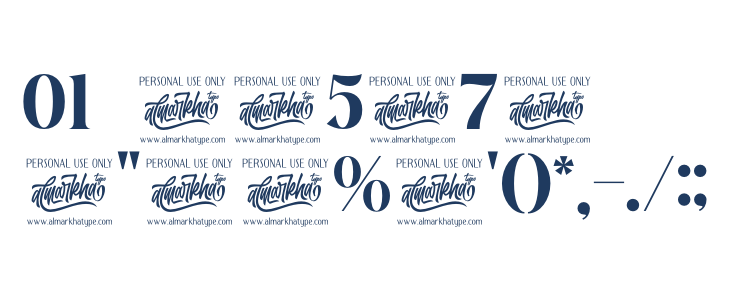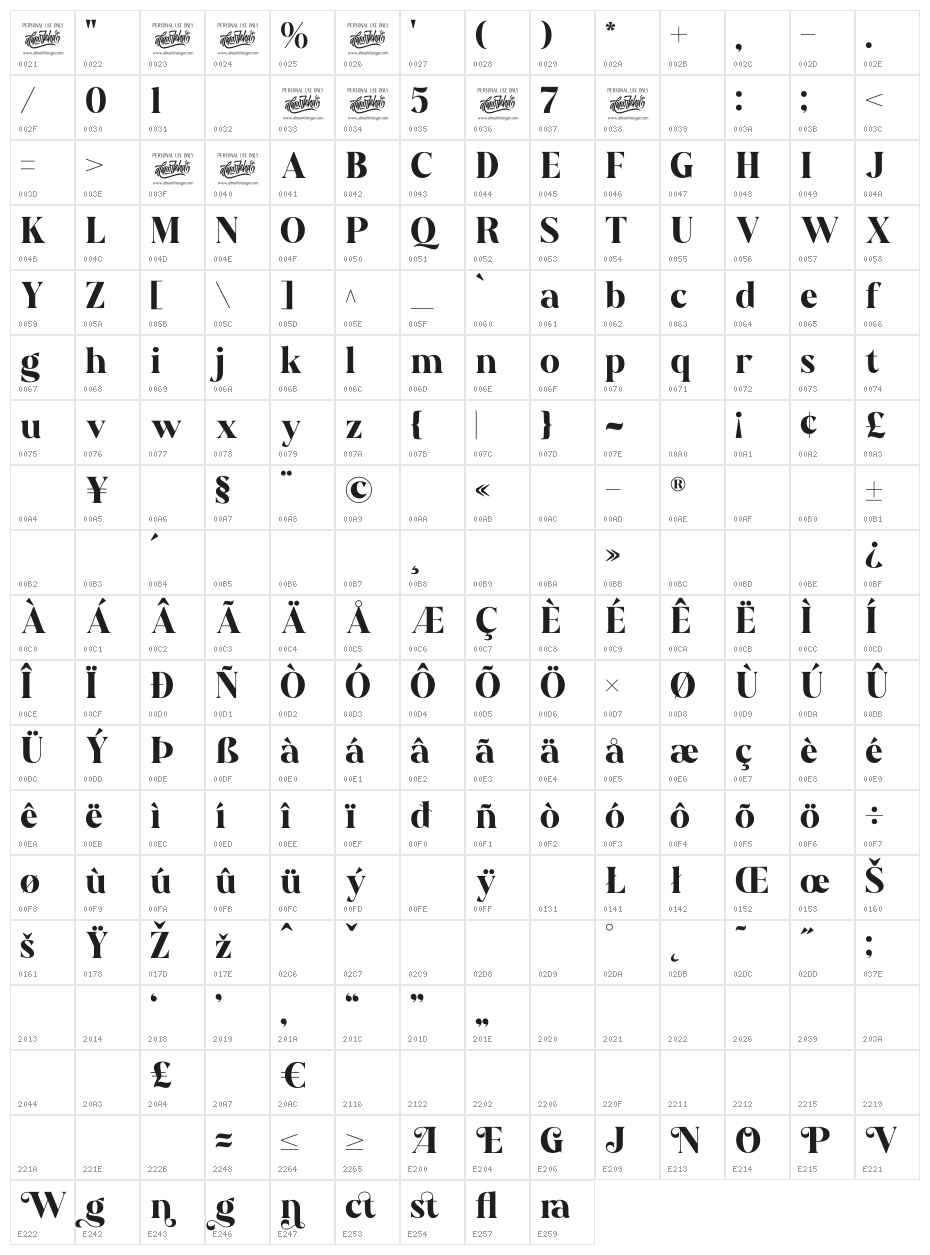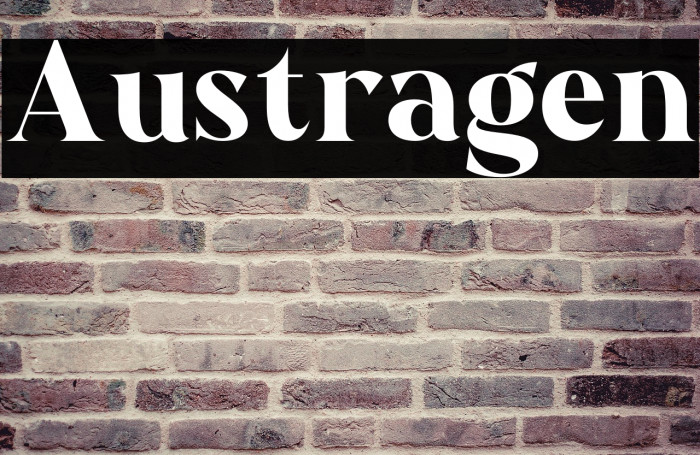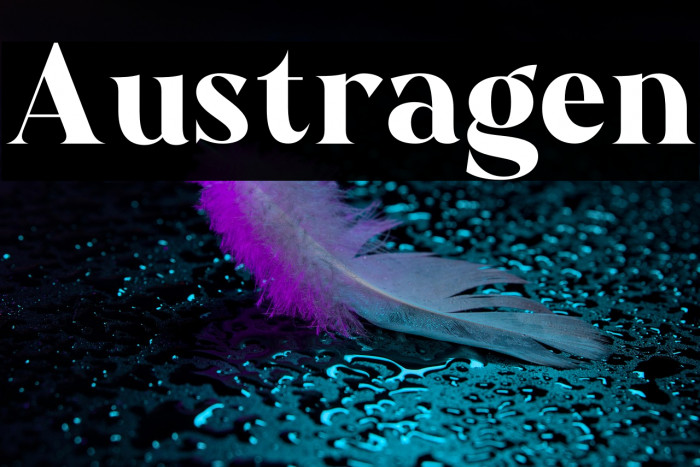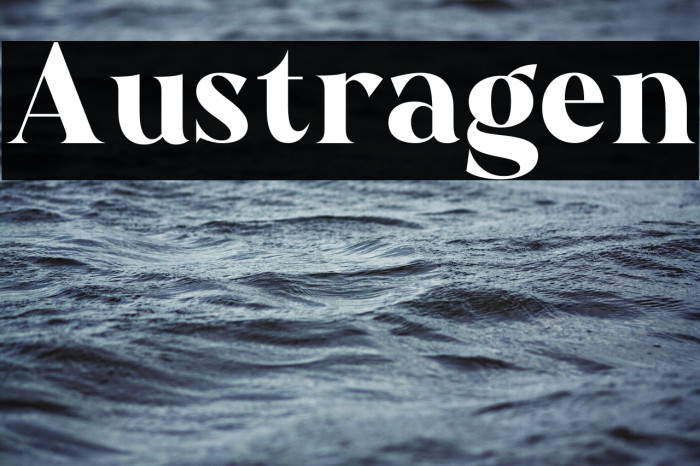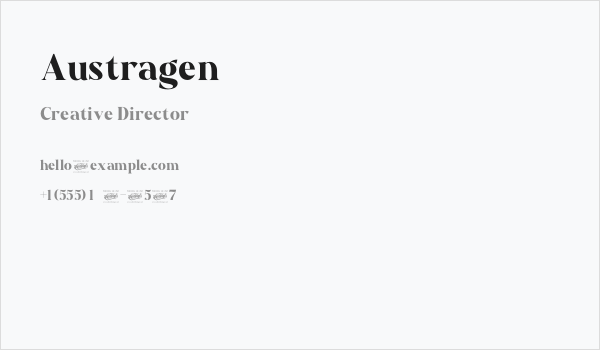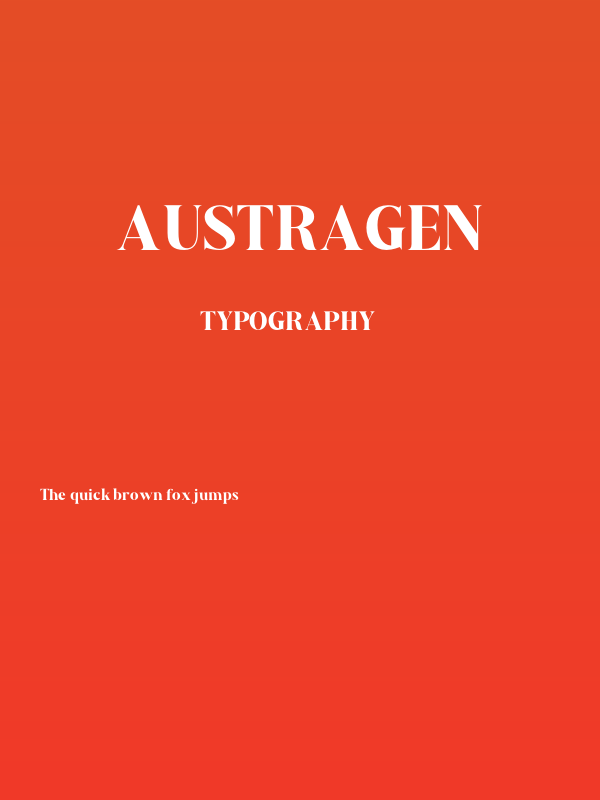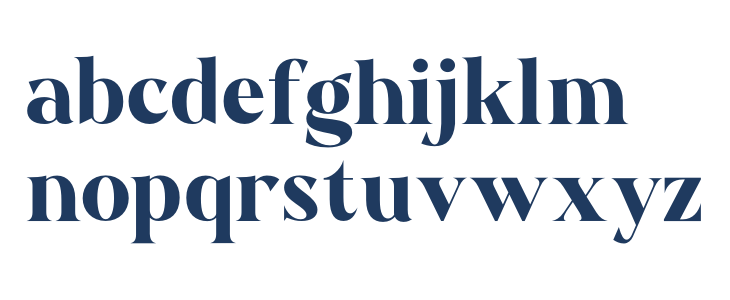
Austragen Font
✎ Serif
Austragen Description
This font exhibits a bold and elegant serif style, characterized by its strong, thick strokes and high contrast between thick and thin lines. The uppercase letters are particularly striking, with a classic and authoritative presence. The lowercase letters maintain a consistent style, offering a harmonious balance with the uppercase. The numerals are clear and legible, while the special characters add a touch of sophistication. This font is suitable for projects that require a touch of elegance and tradition, such as formal invitations, editorial design, and branding.
| Categories | Serif |
| Overall Style | Classic |
| Use Case | Headlines, Logos, Editorial Design |
| Proposed Projects | Ideal for formal invitations, editorial design, branding, and luxury product packaging. |